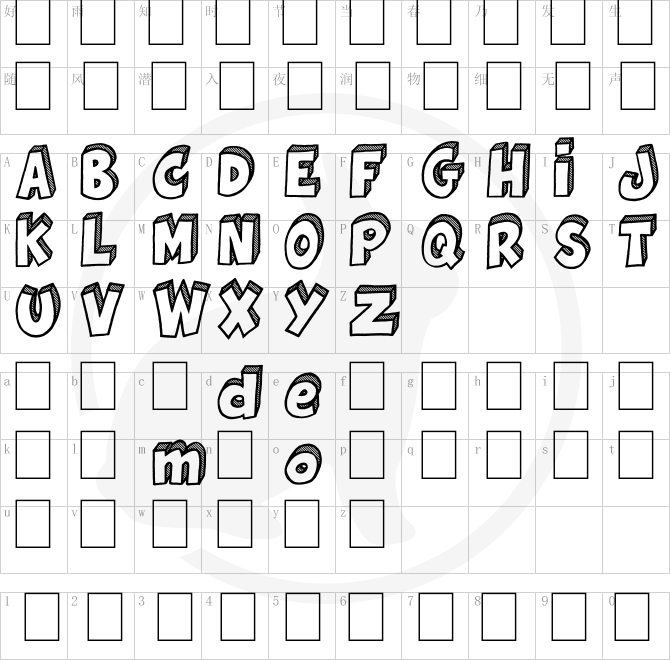
- Font Name:Jackpot Demo
Jackpot-Demo-copy-1-.ttf is a very beautiful artistic font, Jackpot-Demo-copy-1-.ttf is widely used in the design and printing of various books and pictures,Jackpot-Demo-copy-1-.ttf has a strong visual impact,Jackpot-Demo-copy-1-.ttf is a commonly used font in newspapers, magazines and books, and is used in posters, e-commerce Poster design, store design, logo design, font design and other fields.Jackpot-Demo-copy-1-.